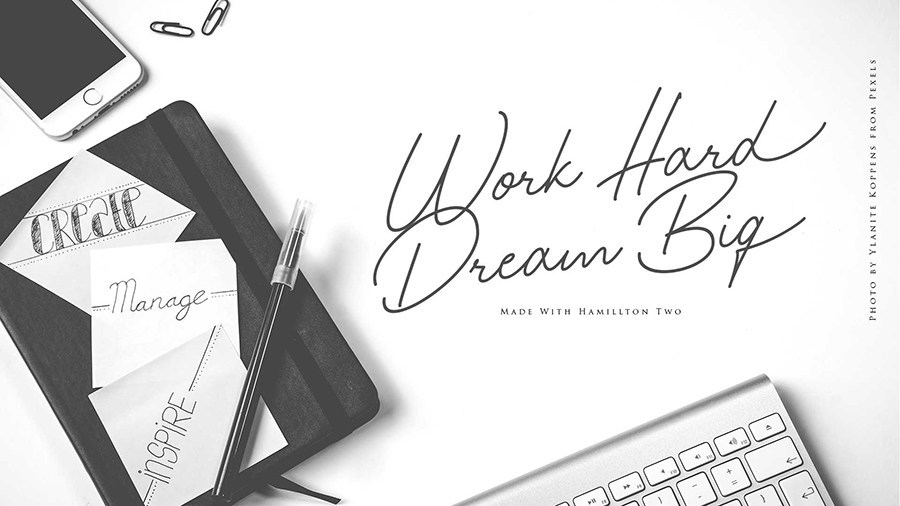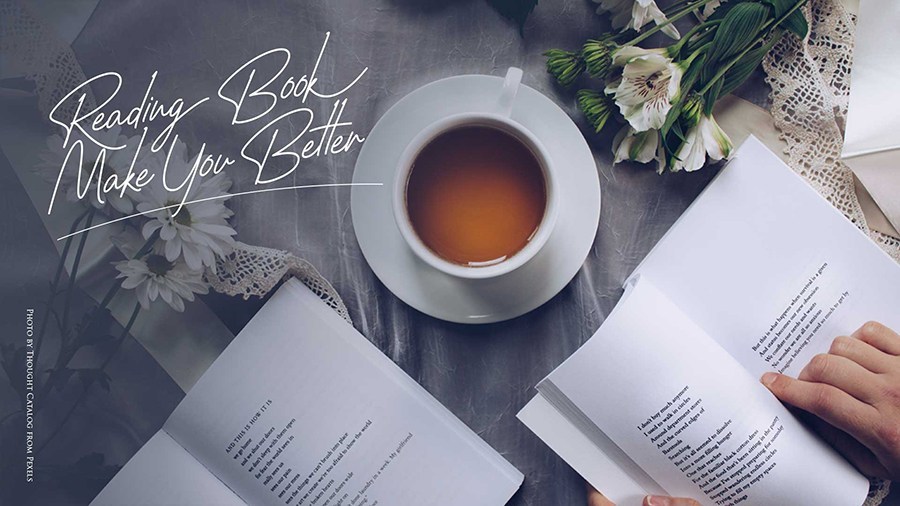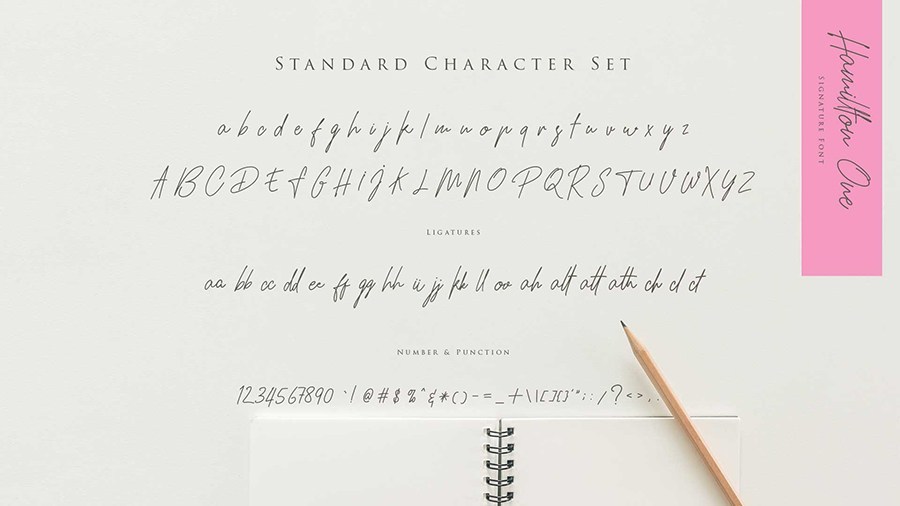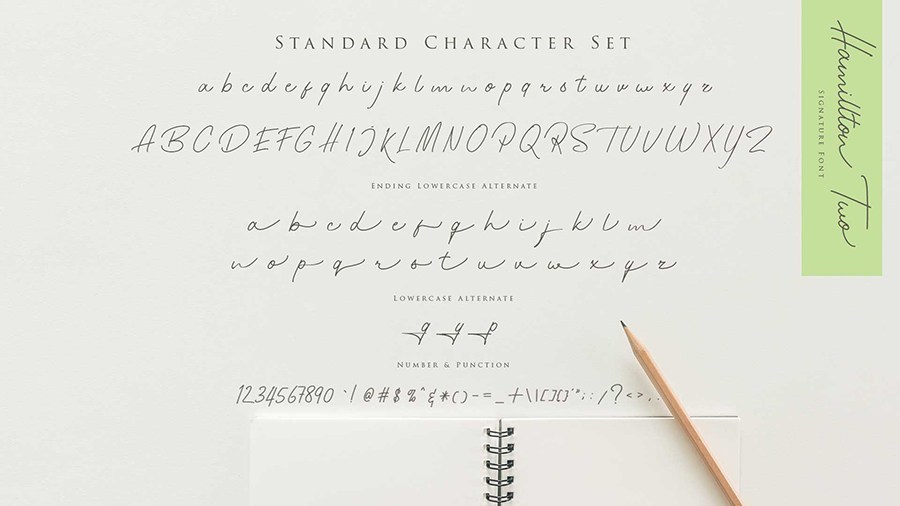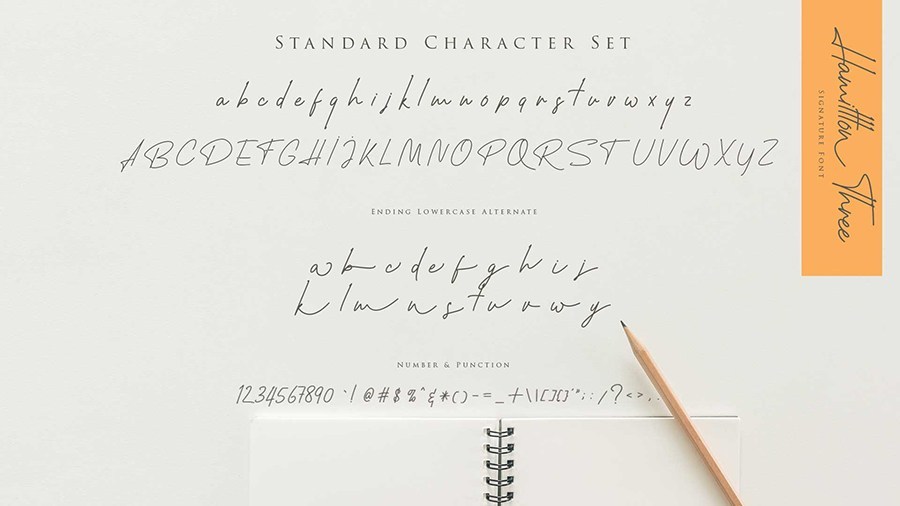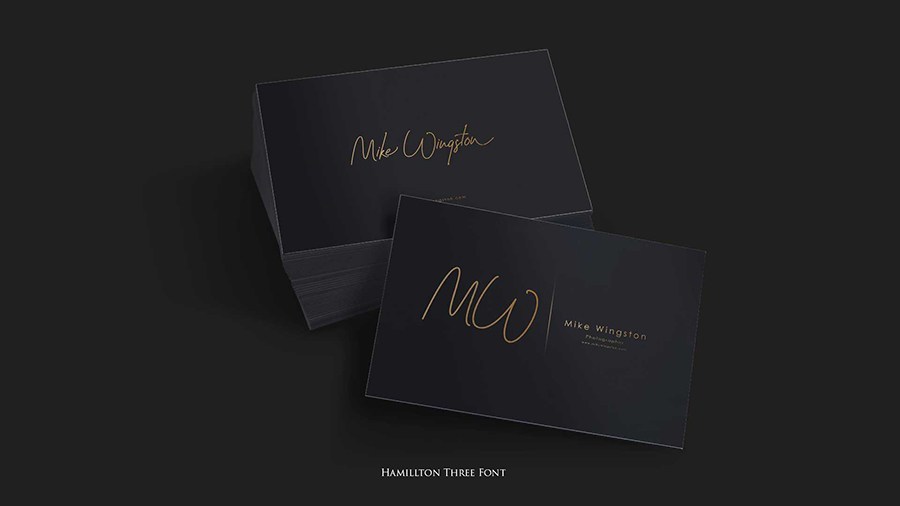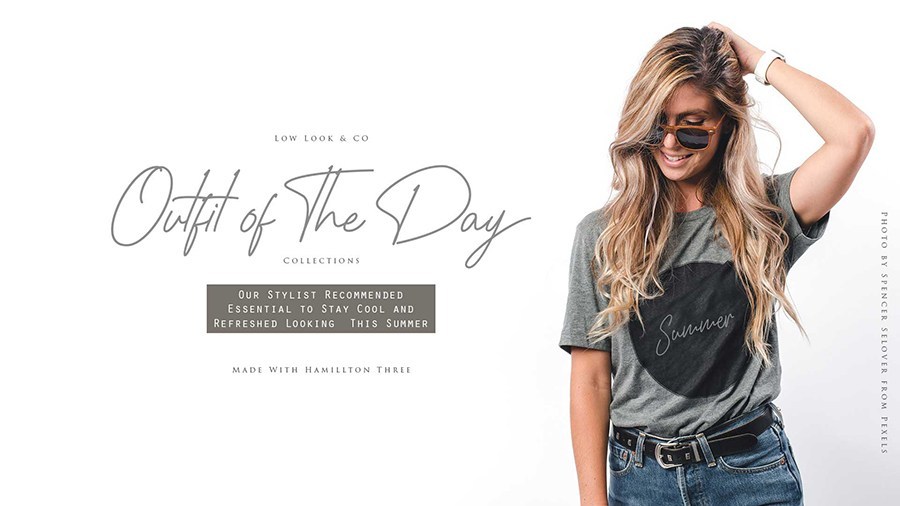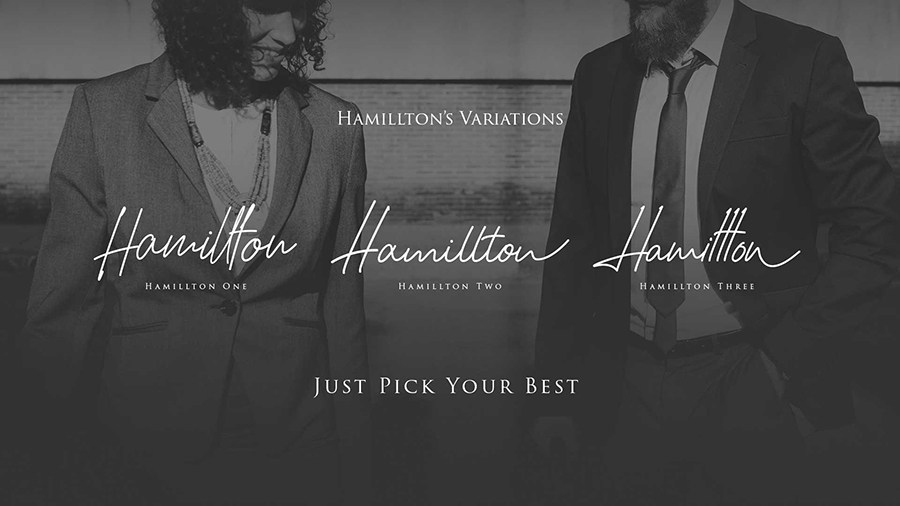
Hamillton Signature Font Demo is made with simple and elegant handwriting. The font looks elegant, classy, legible, stylish, memorable, and easy to use. Hence it makes a perfect choice for logo design, quotes, album covers, business cards, and many other design projects. From business cards to photo watermarks, Hamillton comes to make your designs more classy and elegant.